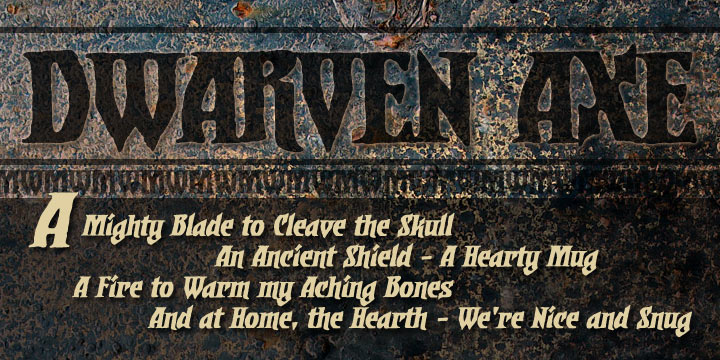
Forge Your Legacy with Dwarven Axe BB Font Free Download
Dwarven Axe BB Font is a strikingly robust typeface, perfectly suited for designs that demand a sense of strength, history, and rugged authenticity. Picture it etched into the stone facade of a fantasy castle, providing a weighty feel to a historical document, or bringing an epic quality to the title of a role-playing game. Its weathered and powerful aesthetic also makes it ideal for medieval festival branding, craft beer labels, rustic signage, and any project that calls for an ancient or handcrafted touch. Whether you’re crafting a bold statement for a tabletop adventure or designing an evocative book cover, Dwarven Axe BB Font will infuse your work with unmatched character and formidable presence.
What makes Dwarven Axe BB Font so exciting? It’s more than just letters; it’s a journey back to an age of legends and craftsmanship. Its unique, distressed texture and strong serifs evoke tales of ancient lore, battle-worn heroes, and enduring legacies. Designers frequently praise its ability to convey both raw power and intricate detail, making it an exceptional choice for projects that need to feel authentic and profound. This font doesn’t just display text; it tells a story, grounding your visuals in a rich, fantastical world. It's the perfect choice for anyone looking to add a touch of epic fantasy or rugged charm to their creative endeavors, ensuring your message is not only seen but felt deeply, resonating with a sense of timeless adventure.
The Dwarven Axe BB Font family, while renowned for its distinctive style, typically offers core variations to provide flexibility for your design needs. You’ll generally find Dwarven Axe BB Regular as the foundational weight, providing that signature weathered look. For added versatility, the family often includes Dwarven Axe BB Italic, which maintains the font's strong character while offering a dynamic slant, perfect for emphasis or stylistic flourishes. These variations allow for cohesive typographic pairings within your projects, enabling you to build impactful headlines and supporting text with a consistent, authentic feel. Explore the full, enduring potential of this remarkable typeface and discover how it can bring an ancient power to your modern designs. After you’ve experienced the might of your initial Dwarven Axe BB Font Free Download, remember to secure the necessary license for all commercial and professional applications.